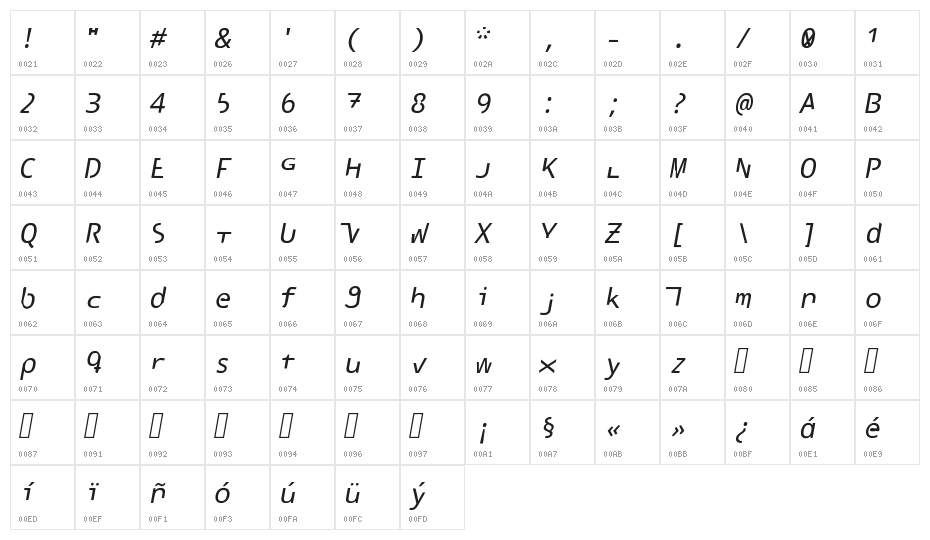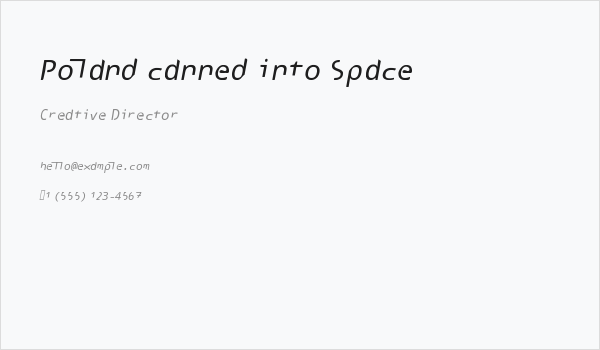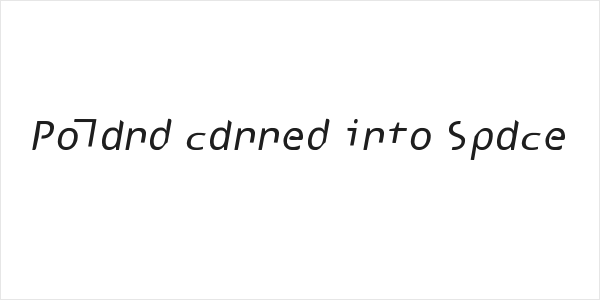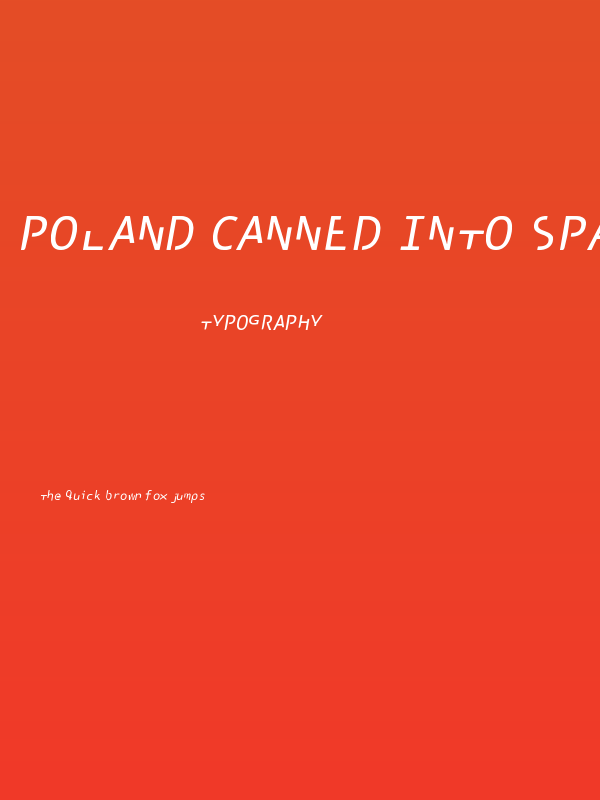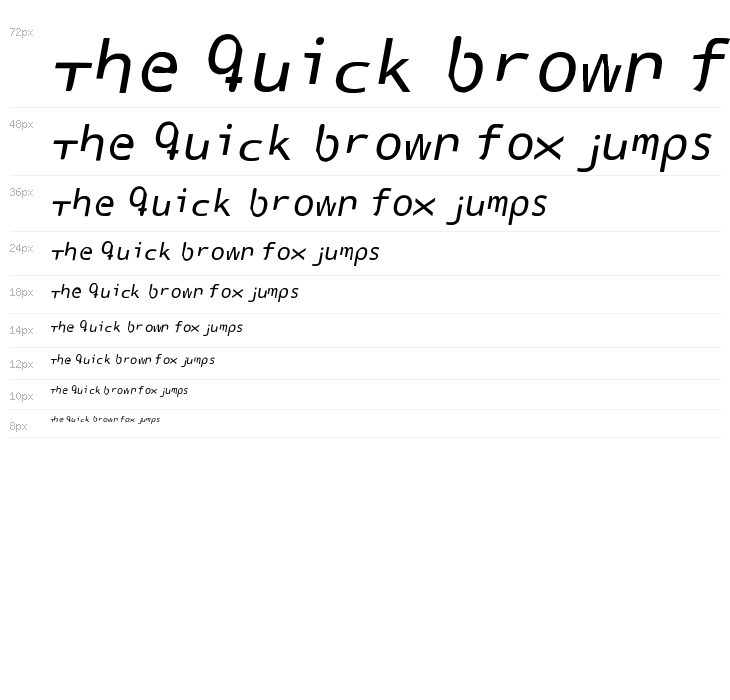
Poland canned into Space Font
Poland canned into Space Description
This font features a playful and dynamic style with a slight slant, giving it an informal and approachable feel. The characters are slightly italicized, adding a sense of motion and fluidity. The strokes are consistent in width, providing a uniform appearance across all characters. The uppercase letters have a distinctive flair, with some characters like 'G' and 'Q' having unique, quirky elements. The lowercase letters maintain a similar playful style, with rounded edges and a friendly demeanor. The numerals are clear and legible, matching the overall style of the alphabet. Special characters are well-integrated, maintaining the font's cohesive look.
| Overall Style | Playful, Informal |
| Proposed Projects | Ideal for children's books, playful branding, casual invitations, and creative projects requiring a friendly and approachable typeface. |